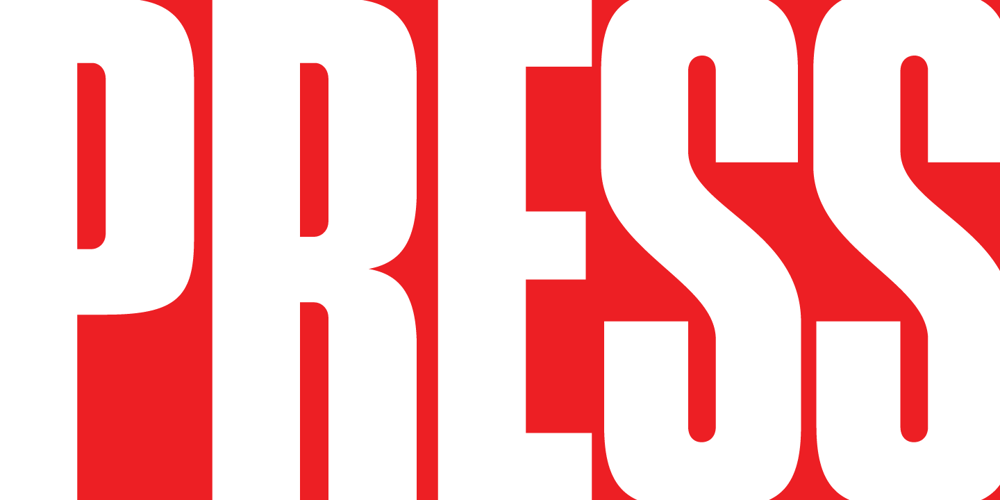
Press Gothic
Press Gothic font
Press Gothic Font Family was designed by Aldo Novarese, Patrick Griffin and published by Canada Type. Press Gothic contains 4 styles and family package options. Press Gothic is a revival of Aldo Novarese’s Metropol typeface, released by Nebiolo in 1967 as a competitor to Stephenson Blake’s Impact (designed by Goeffrey Lee). Though Metropol enjoyed a few short months of popularity and use in Italy, Germany and France, Impact won the technological outlasting battle by moving on to film type then to computer outlines bundled with mainstream software, while Metropol never made it past the metal state until now. Too bad really, since this is one of the few faces that could have played well with all the horrendous stretch’n’squeezing of the 1970s. Just like its inspiration, Press Gothic aims to be a fresh alternative to big economical poster fonts with clear sans serif forms and an urgent, strong, yet elegant design appeal. In the summer of 2008, Press Gothic underwent a major linguistic and aesthetic reworking for an international publishing company. The result of this on the retail side are new small capitals and biform/unicase additions to the main font, as well as expanded language support that includes Cyrillic, Greek, Turkish, Baltic, Central and Eastern European, Maltese, and Esperanto. Press Gothic Pro, the OpenType version, combines all three fonts into one, taking advantage of the small caps feature, and the stylistic alternate feature for the biform shapes.